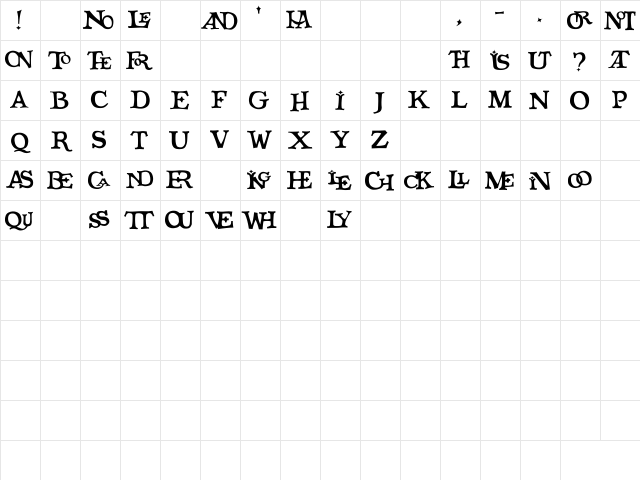
Quicktype Regular
Foundry: Starving-4 Entertainment
Designer: Darren Rigby
Design Context for Quicktype
Quicktype is a composed and adaptable typeface that performs quietly and consistently across a wide range of design contexts.